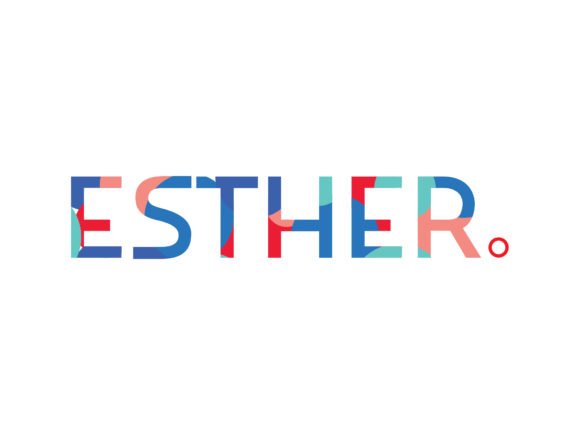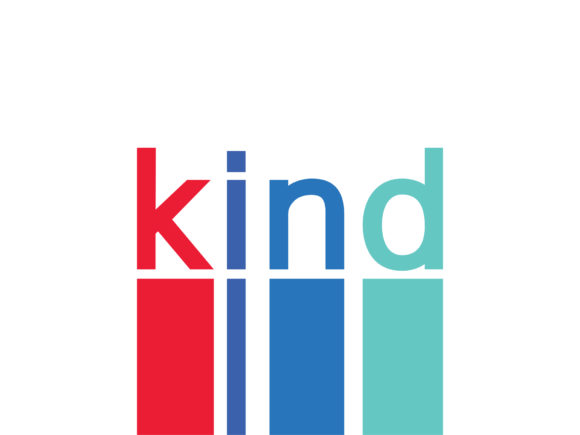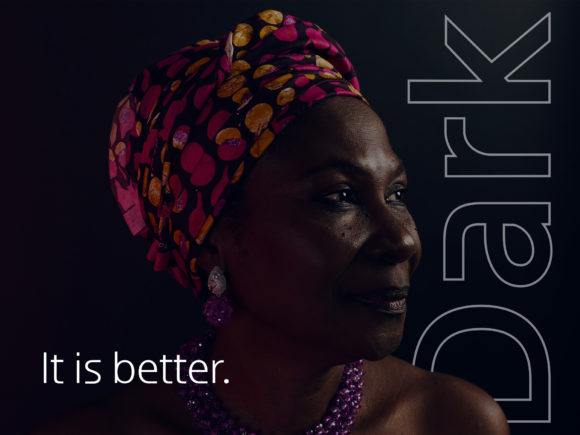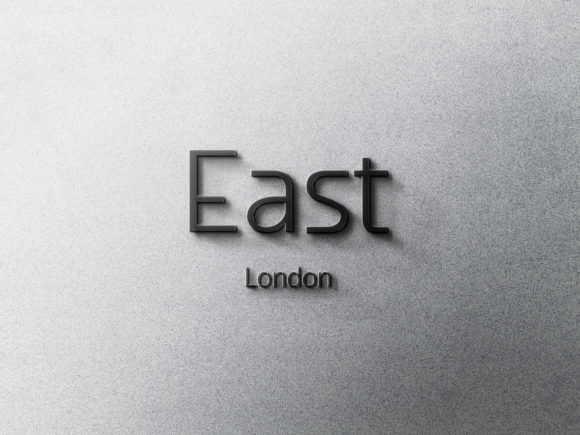
Meet Your New Design BFF: Esther Font
Have you ever stared at a blank design canvas, feeling like the perfect font is just out of reach? That’s where the magic of Esther Font comes in – a simple, yet impactful sans serif typeface that’s about to revolutionize your design game.
Designed to make a statement, Esther Font is perfect for when you want to add a touch of elegance to your headlines, logotypes, or branding materials. Its natural and casual vibe makes it an ideal choice for creating attention-grabbing logos, promotional content, and marketing graphics that truly resonate with your audience.
Whether you’re a seasoned designer or just starting out, Esther Font is a valuable addition to your toolkit – offering endless possibilities for creative expression and visual storytelling.
Esther Font Key Features
- Font Family: Esther is a sans-serif font family.
- Size: The font family includes 6 weights (Thin, Light, Regular, Medium, Bold, Black) and 2 styles (Italic, Regular).
- Unique Characteristics: Esther features a clean, modern design with subtle rounded edges and a wide range of language support.
- Language Support: Supports a wide range of languages including Latin, Cyrillic, Greek, and more.
Esther Font Review
Overall, I found Esther Font to be a solid choice for typography, but it has its strengths and weaknesses.
- Legibility: Esther Font is easy to read, making it a great choice for body text.
- Neutral tone: The font’s neutral tone allows it to work well in a variety of contexts.
- Lack of personality: While neutral can be good, Esther Font’s lack of personality makes it feel unremarkable.
- Not ideal for titles: The font’s rounded edges make it less suitable for use in titles or headlines.
- Not highly stylized: Esther Font’s design is clean, but it doesn’t offer a lot of unique flair.
Esther Font is a dependable choice for typography, but it’s not particularly exciting. If you’re looking for a neutral font that’s easy to read, Esther Font might be a good fit. However, if you’re looking for a font with a lot of personality or unique design elements, you might want to consider other options.
Esther Font is commonly used in:
- Wedding invitations and station